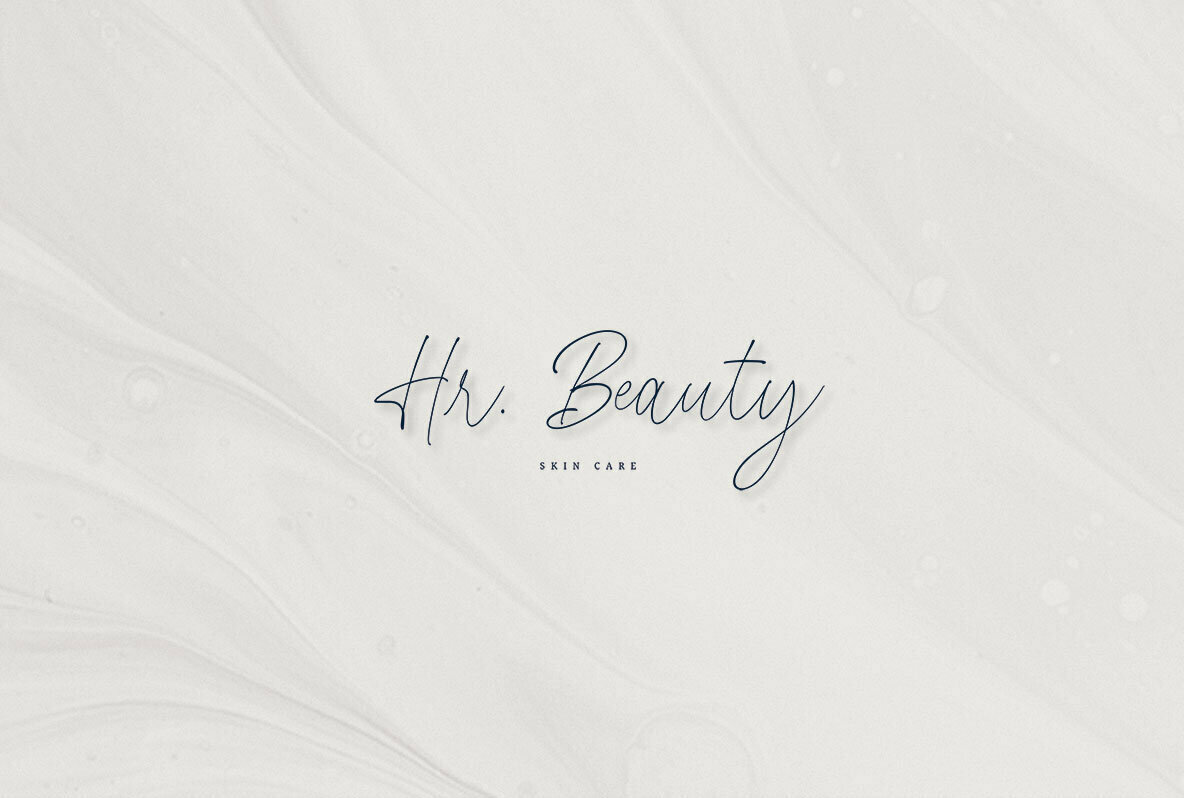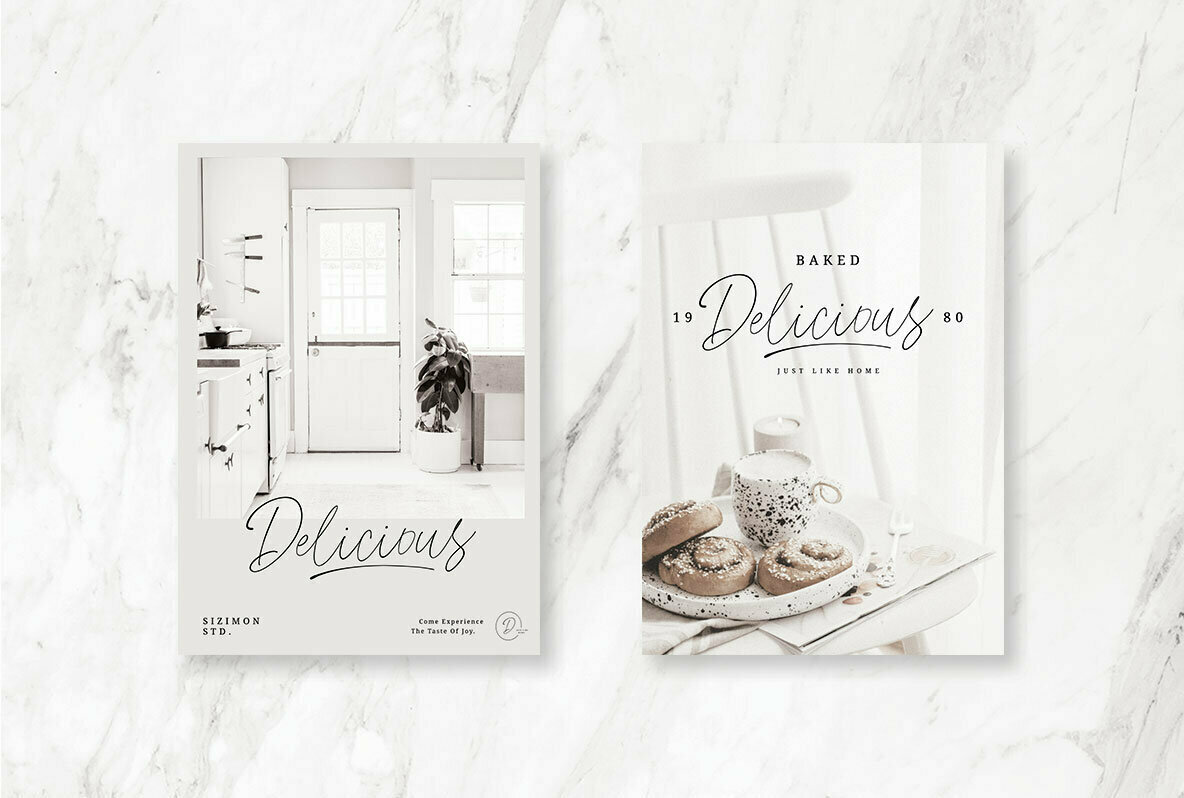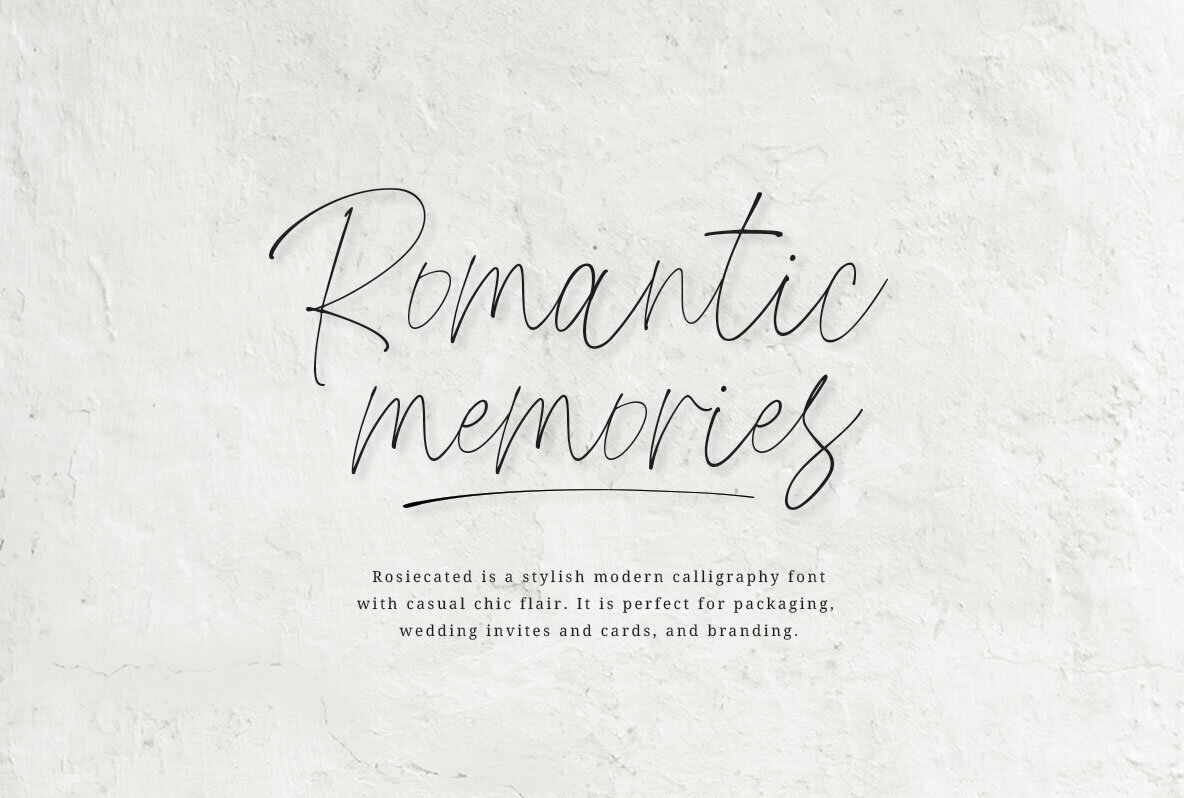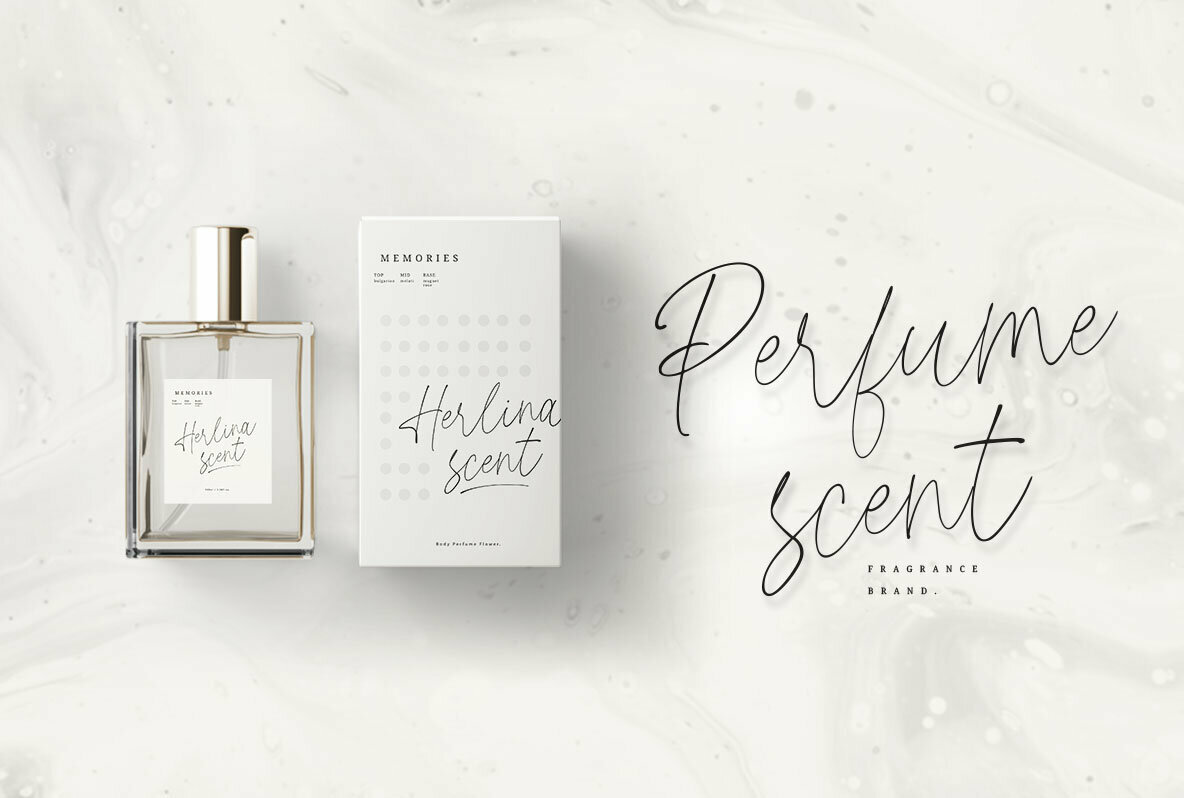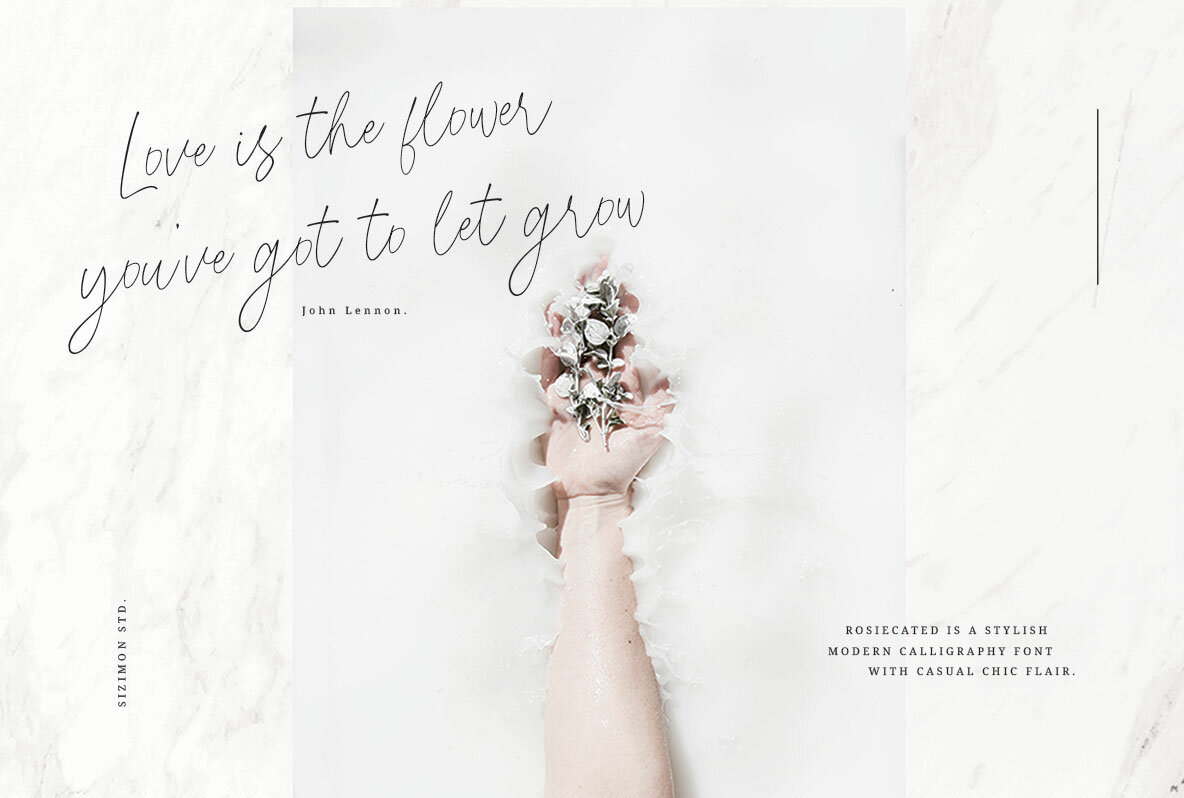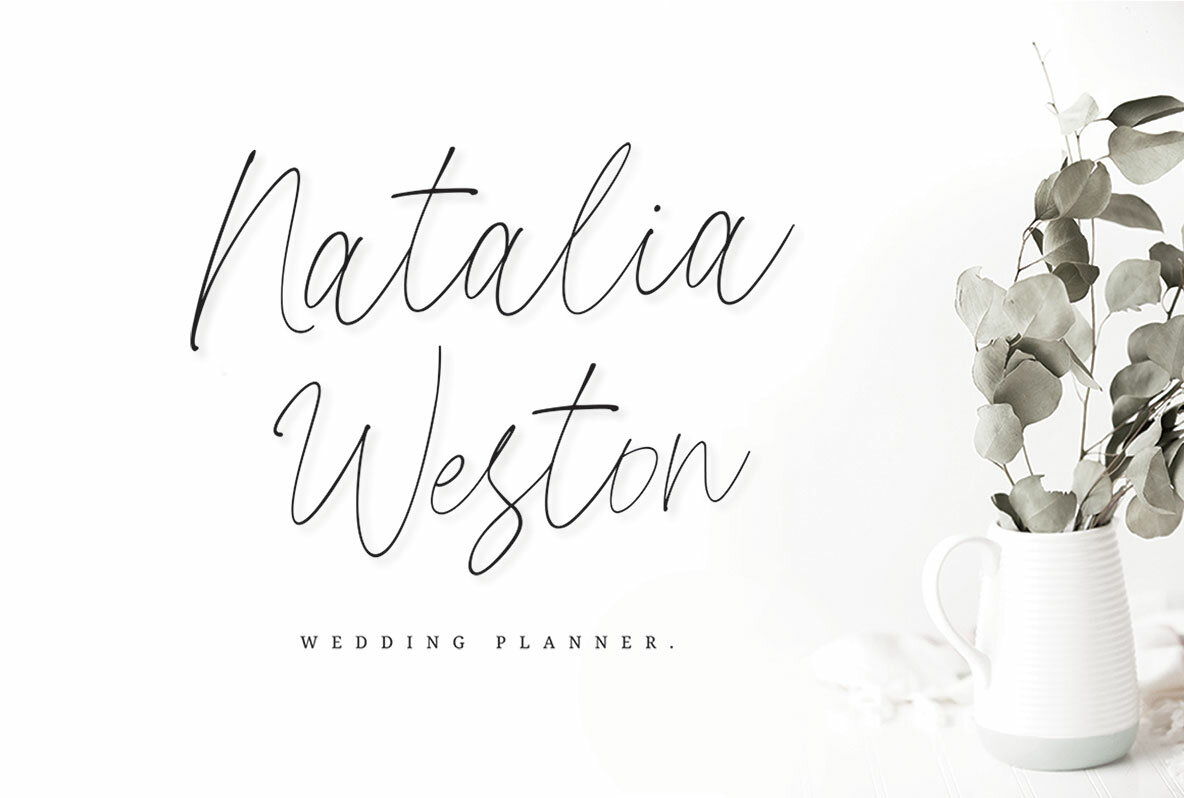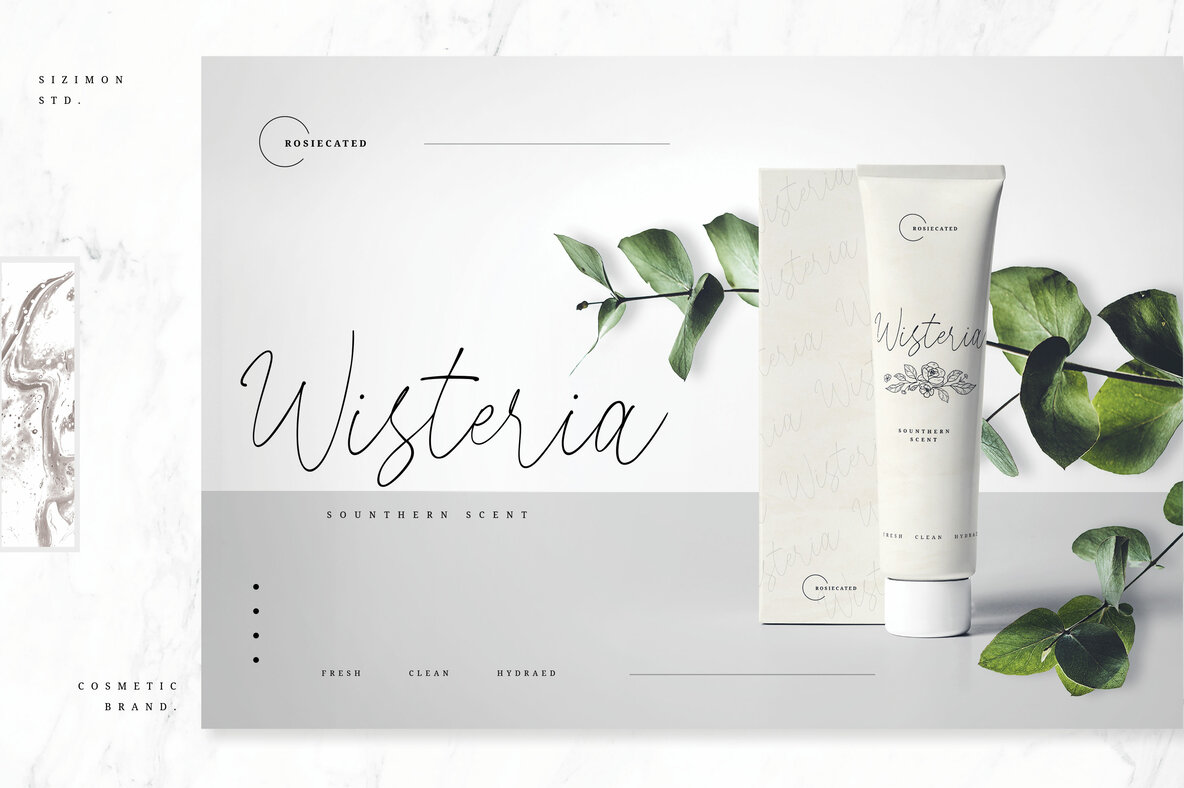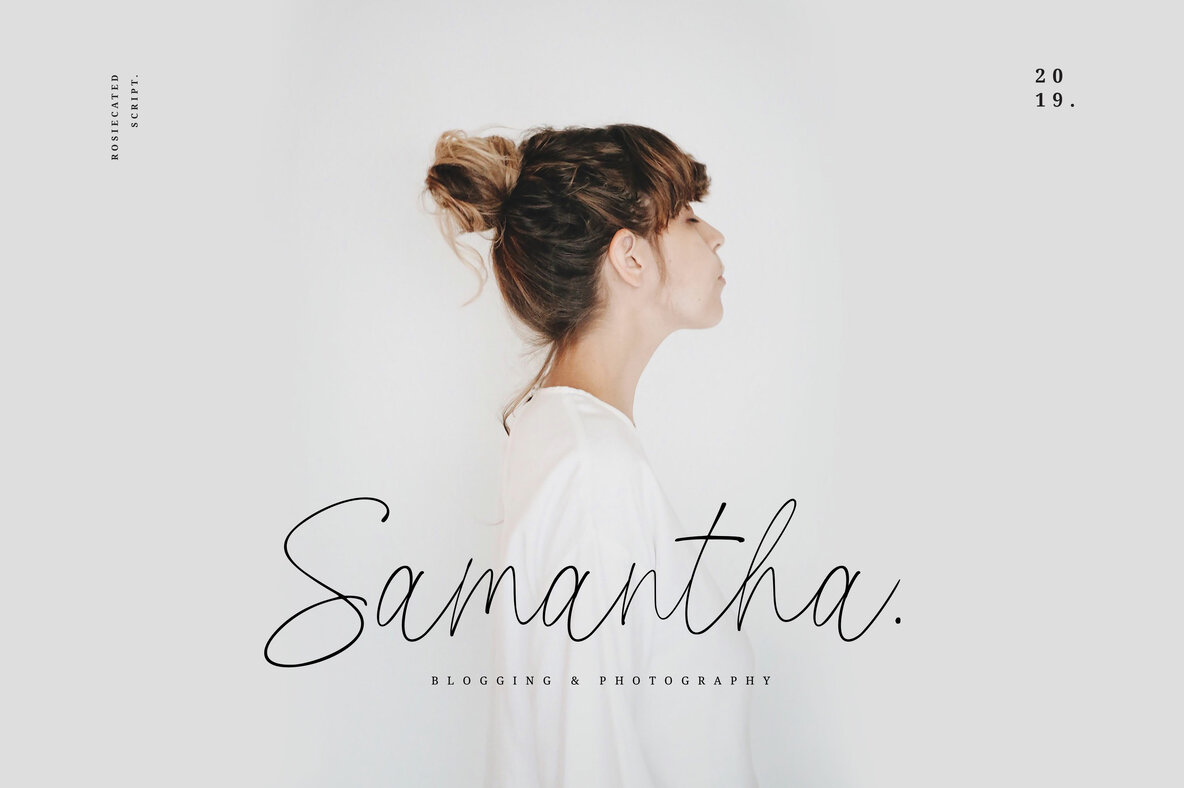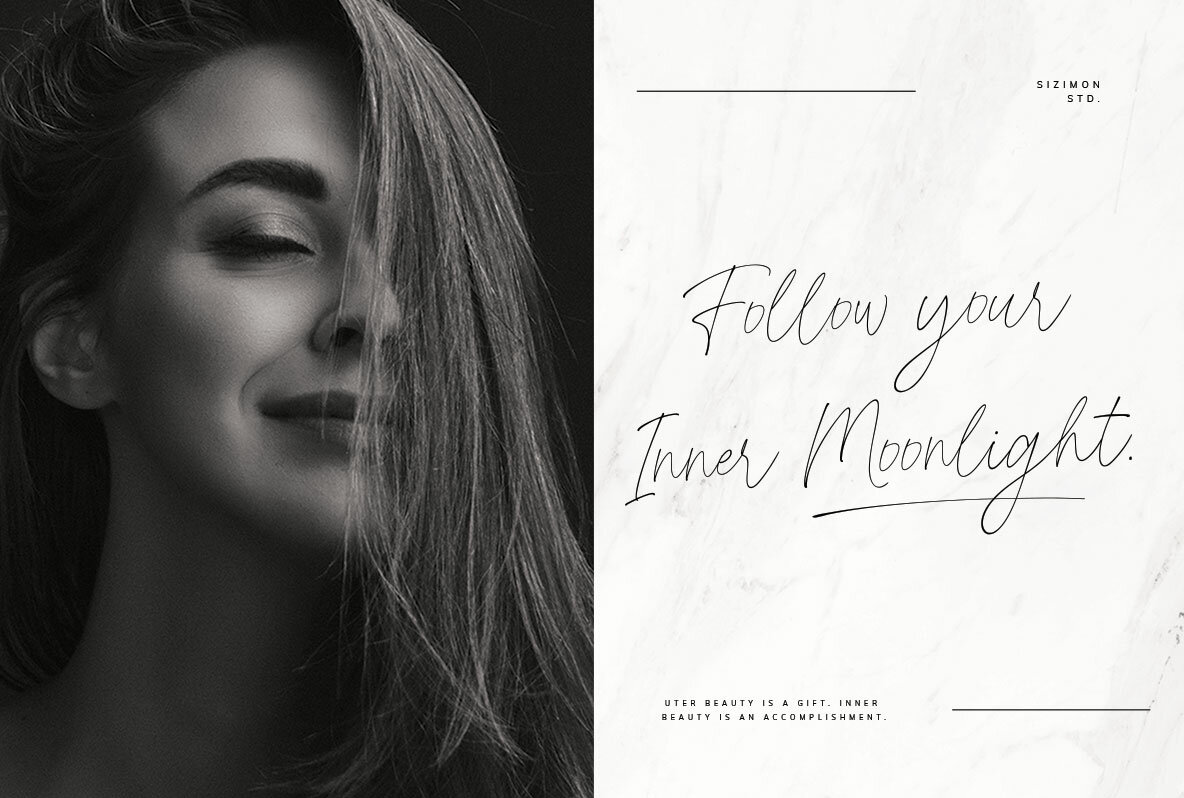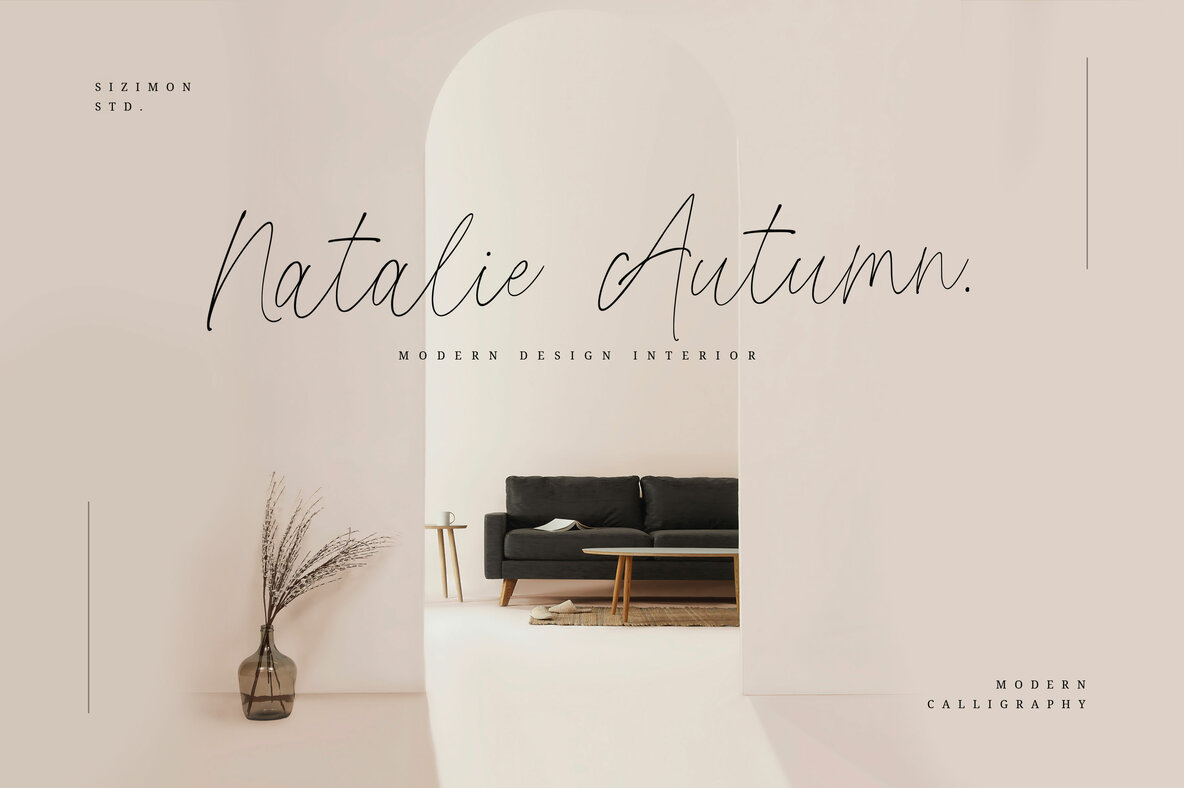
Rosiecated Script
Rosiecated Script embodies a blend of modern calligraphy with a casual chic flair, making it a delightful choice for numerous design projects. Whether you're crafting wedding invitations, designing packaging, or developing brand identities, this font offers the style and versatility needed for elegant compositions. Rosiecated Script includes a complete set of lowercase and uppercase letters, a wide array of punctuation, numerals, and extensive multilingual support.Rosiecated Script: Chic Modern Calligraphy